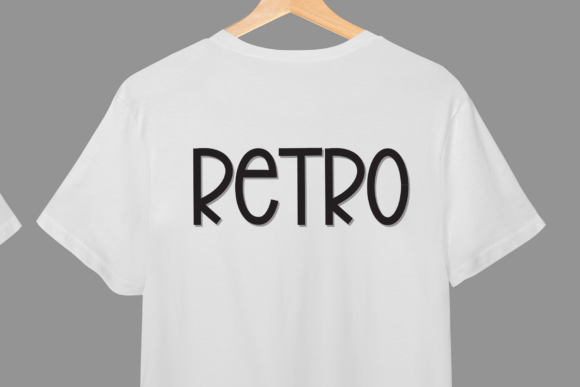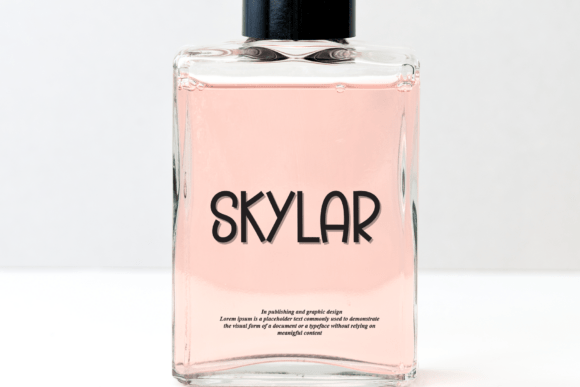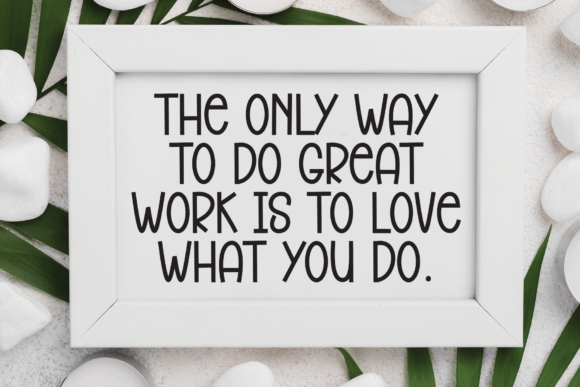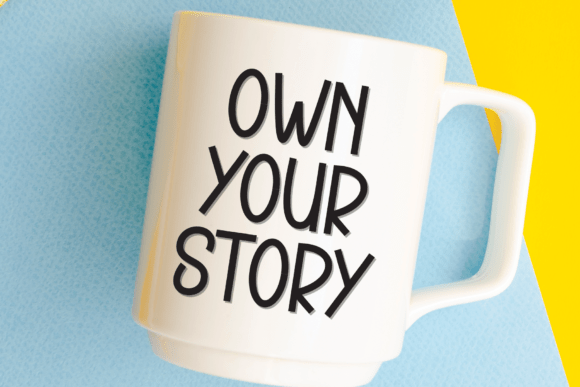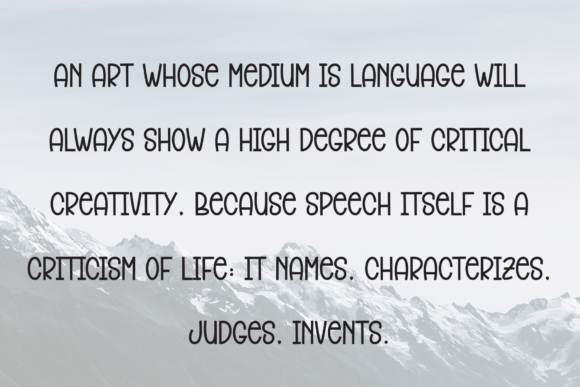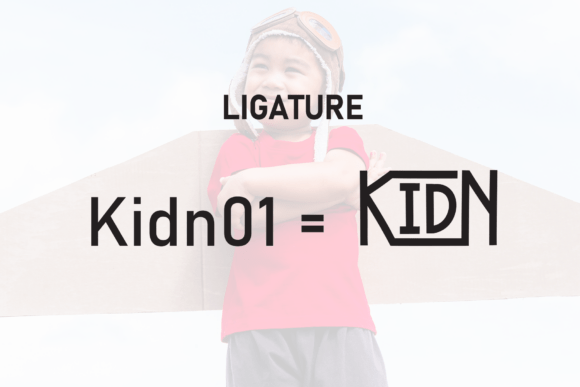
Unlocking the Fun in Type: Discover the Kidness Font
As designers, we’ve all been there – staring at a blank canvas, searching for the perfect font to capture the essence of our project. It’s that moment when the concept of ‘kid-friendly’ typography starts to feel, well, a bit too ‘kiddie.’ Enter the Kidness Font, a refreshing take on playful typography that effortlessly blends modernity and whimsy.
Developed to bring a touch of innovation to brands targeting the younger audience, the Kidness Font boasts a unique architectural structure and clean, monolinear strokes. This striking combination gives it a ‘tech-meets-toy-box’ aesthetic that’s both approachable and professional. By incorporating the Kidness Font into your design, you can give your project a clean, modern look that’s sure to resonate with your target audience.
Kidness Font Key Features
- Font Family: Kidness Font is a unique sans-serif font family designed specifically for digital use, making it perfect for children’s educational content, apps, and websites.
- Character Count: The font family includes over 1,000 glyphs, covering a wide range of languages, including Latin, Cyrillic, and Greek alphabets.
- Color Palette: The font family features a vibrant and playful color palette, with 12 different color variations to choose from, including bright primary colors, pastel hues, and metallic tones.
Kidness Font Review
Overall, I think Kidness Font is a sweet and playful addition to any design project. ✨ The rounded edges and childlike charm bring a sense of innocence and joy to the table. It’s perfect for projects that require a lighthearted and whimsical touch.
Here are some of the things that I think work well:
- Unique character set – Kidness Font offers a wide range of characters and glyphs that add to its charm.
- Customizability – The font can be customized to fit any design project, from children’s books to advertising campaigns.
- Playful feel – Kidness Font has a distinct personality that shines through in its design.
However, I do think there are some limitations:
- Limited scalability – Kidness Font may not be the best choice for large-scale projects or body text.
- Not suitable for formal projects – The playful nature of Kidness Font may not be suitable for formal or professional projects.
Overall, I think Kidness Font is a great choice for designers who want to add a touch of whimsy and playfulness to their projects. It’s perfect for creative and innovative projects, but may not be the best choice for more formal or traditional designs. ⚠️
Introduction to Kidness Font
What is Kidness Font?
Kidness Font is a playful, cursive script font designed to evoke a sense of childhood innocence and wonder. It’s perfect for creating eye-catching designs that appeal to kids and kids-at-heart.
Tips for Getting the Most Out of Kidness Font
Use Kidness Font in combination with bright, bold colors to create a playful and eye-catching design. Experiment with different font sizes and styles to add visual interest.
Kidness Font is perfect for:
- Education and learning materials
- Marketing and advertising campaigns targeting kids and families
Alternatives to Kidness Font
Great Vibes Font is a modern, cursive script font ideal for creating a friendly and approachable atmosphere. It’s perfect for designs that require a sense of warmth and personality. Compared to Kidness Font, Great Vibes Font has a more fluid and organic feel, making it suitable for a wide range of applications, from branding to editorial content.
Pacifico Font is a beautiful, elegant script font that exudes a sense of sophistication and luxury. It’s ideal for designs that require a touch of class and refinement. While Kidness Font has a more playful and childlike feel, Pacifico Font has a more mature and sophisticated tone, making it suitable for high-end branding, packaging, and advertising.